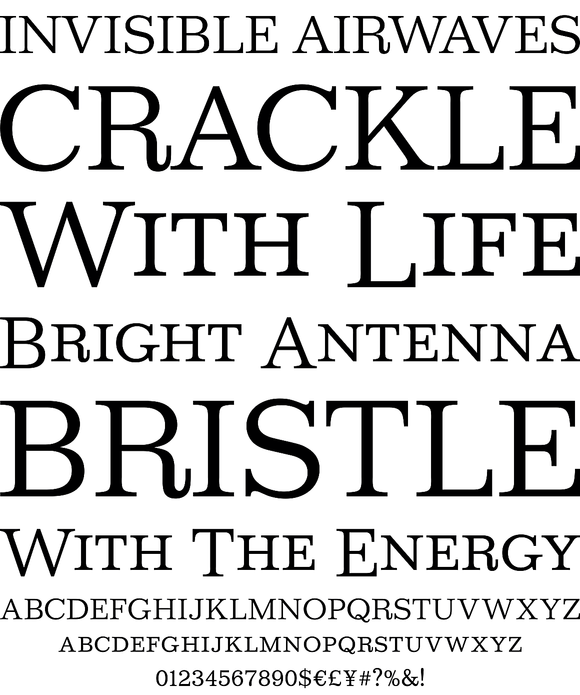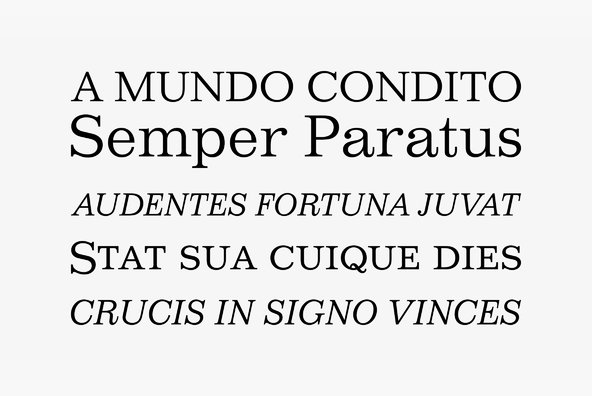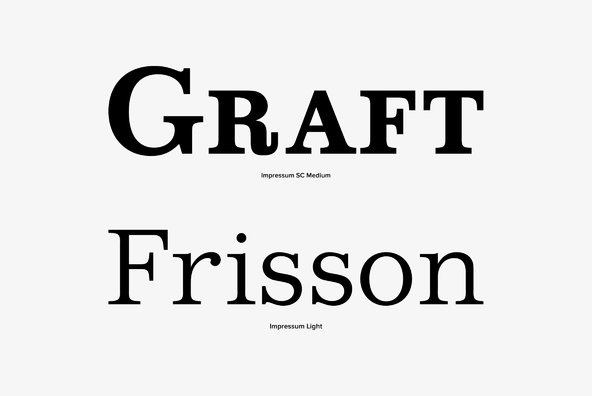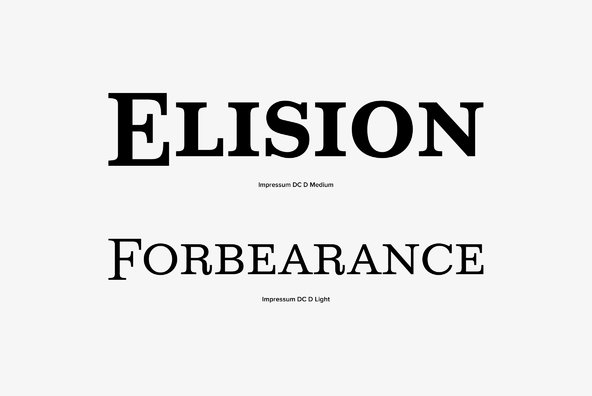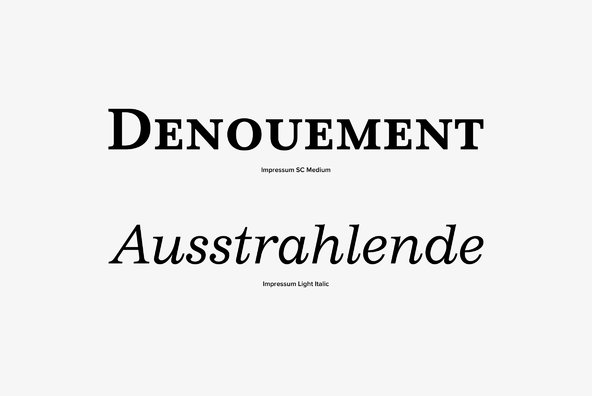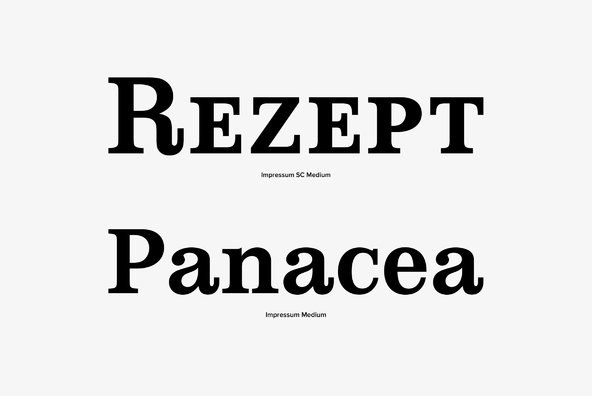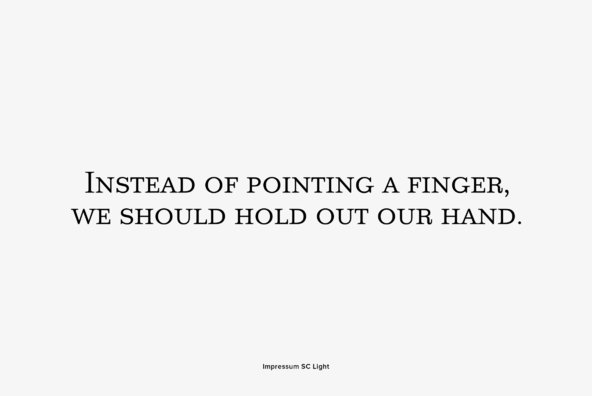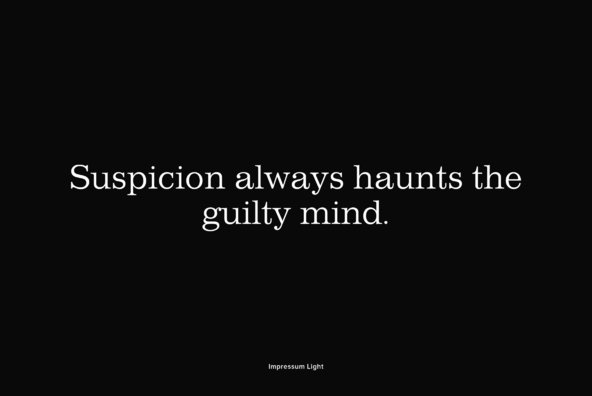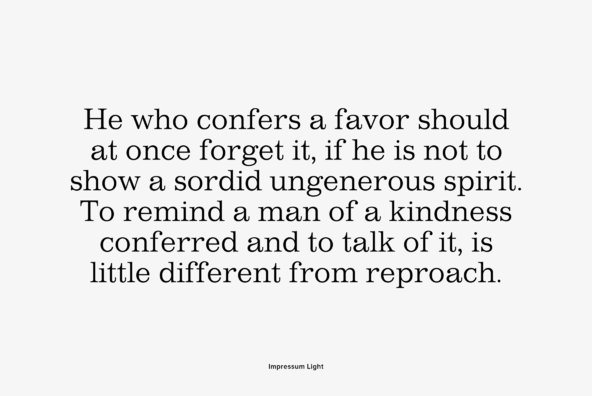
Impressum
Designed by Dr. Konrad F. Bauer and Walter Baum in 1964, Impressum is a serif font release by URW. Contains language support for West, East, Turkish, Baltic, and Romanian. Impressum is a registered trademark of Bauer Types SA.